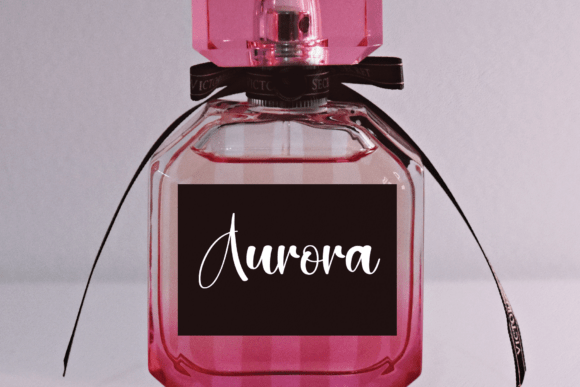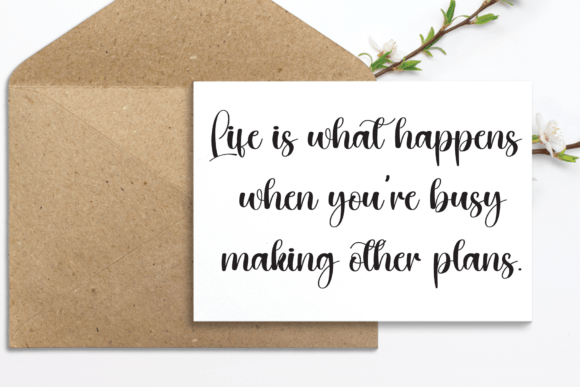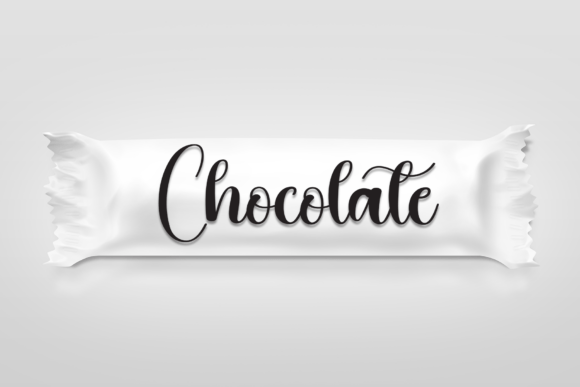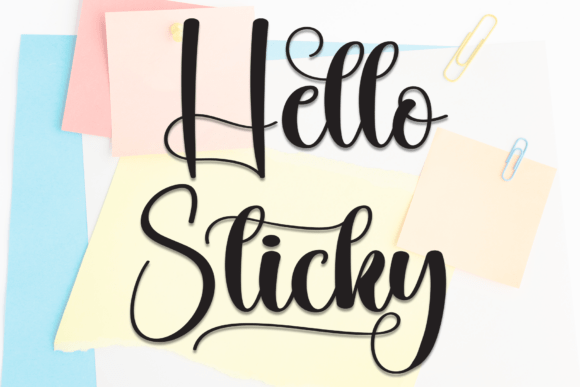
Introduction to Hello Sticky Font
Hello Sticky is a flowing and elegant script font that captures the beauty of handwritten calligraphy with a modern twist.
Its fluid curves and graceful strokes make it perfect for wedding invitations, branding, social media quotes, and stylish stationery Whether you’re designing for romance or sophistication, this font delivers charm and personality in every letter.